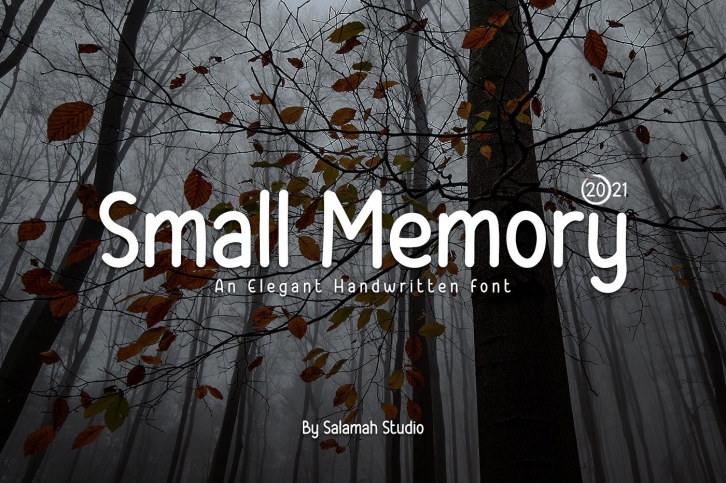
Small Memory is a sweet and friendly handwritten font. Its natural and unique style makes it incredibly fitting to a large pool of designs. The only limit is your imagination!